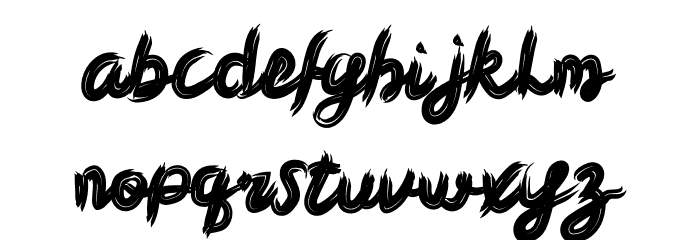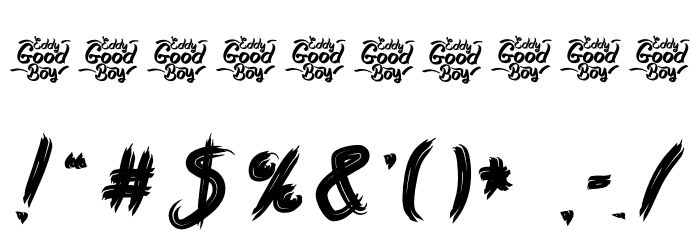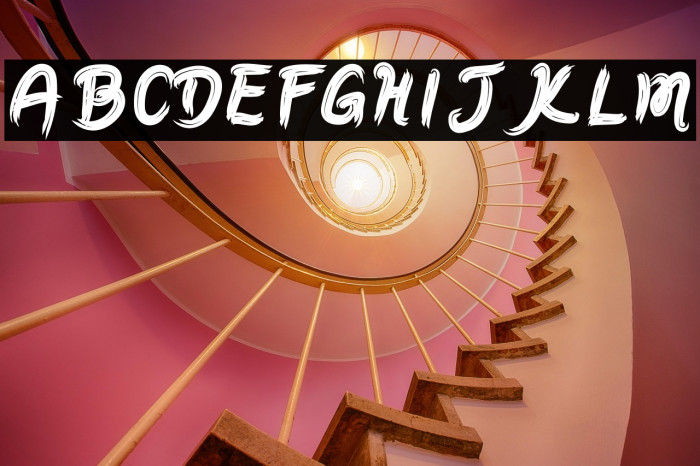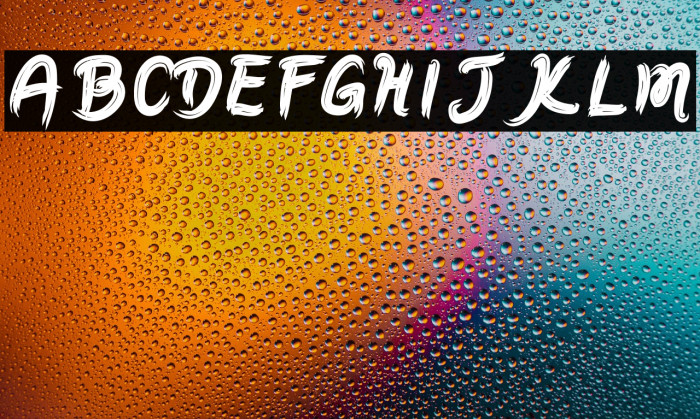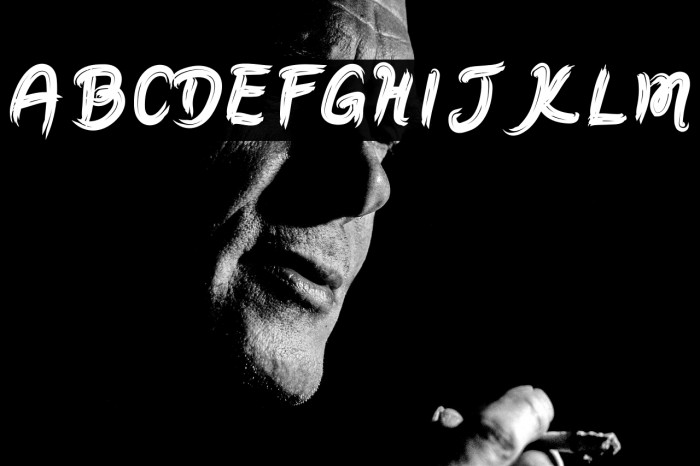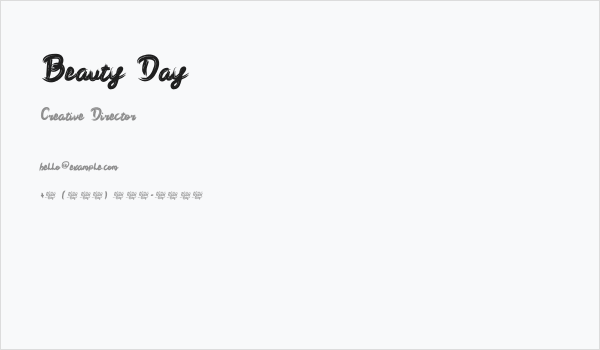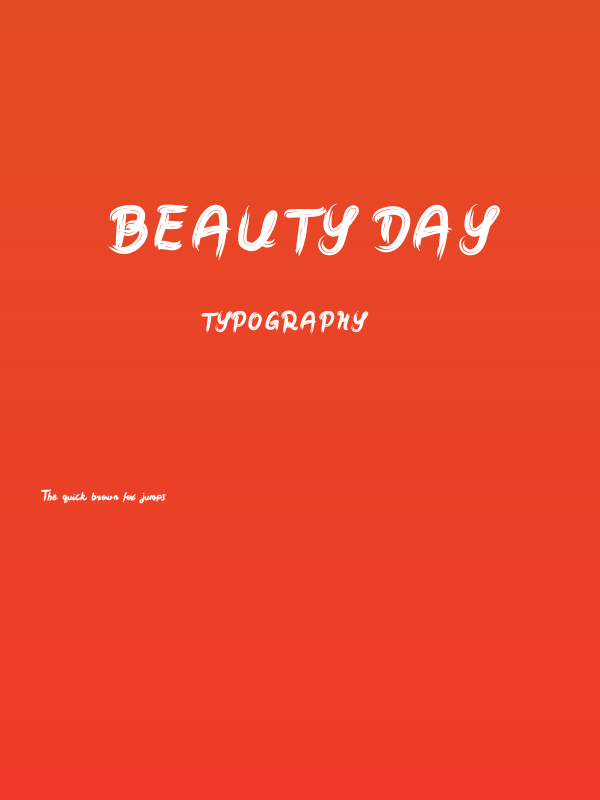
Beauty Day Font
This font features a bold, brush-like style with dynamic strokes that give it a lively and energetic appearance. The characters are crafted with a sense of movement, resembling hand-painted letters with varying thicknesses and expressive curves. The uppercase letters are bold and prominent, while the lowercase letters maintain a consistent flow, enhancing the font's artistic flair. The numbers and special characters are equally expressive, maintaining the overall aesthetic. This font is ideal for projects that require a touch of creativity and boldness.
A bold, brush-style font with dynamic, hand-painted strokes.
- Font: Beauty Day
- Proposed Projects: Perfect for artistic posters, branding, logos, and creative invitations.